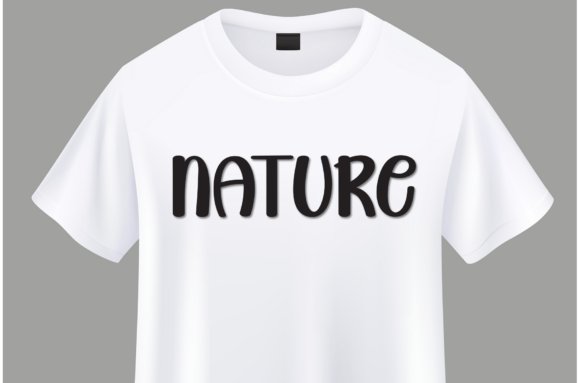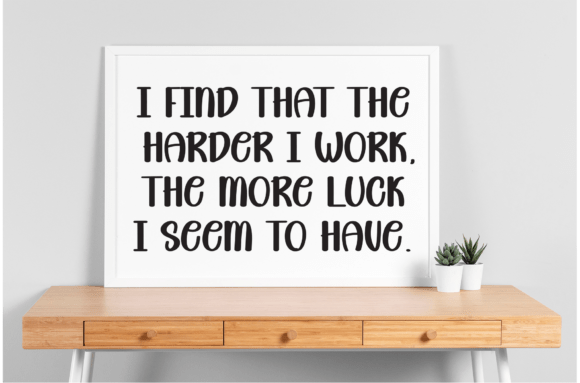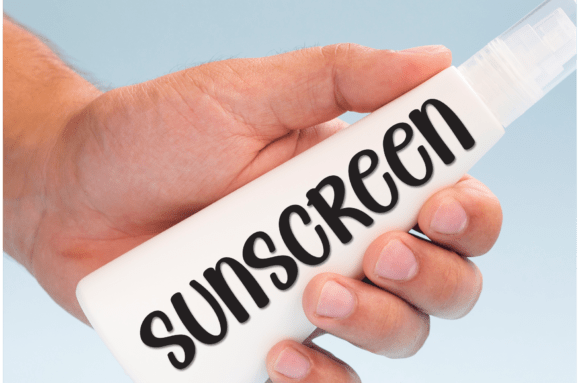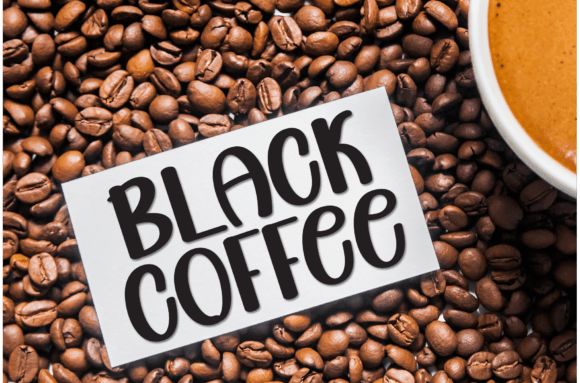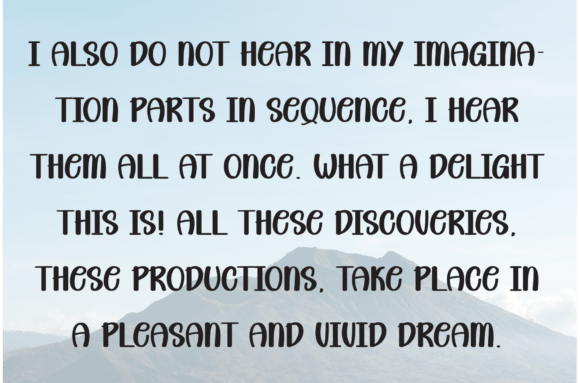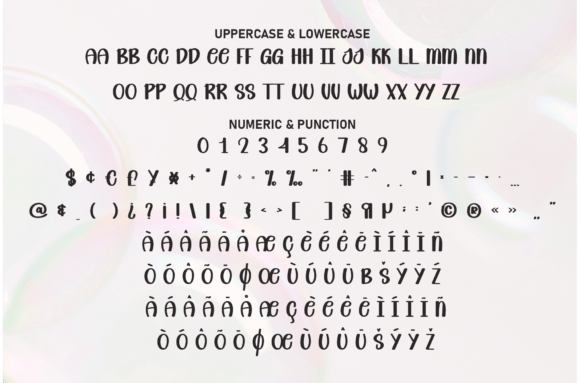
Unleashing the Power of Personality in Typography
As a designer, there’s nothing quite like the thrill of finding the perfect font to elevate a project from good to great. It’s that moment when the words start flowing, and the ideas begin to take shape – and for many of us, it’s a moment that’s all about capturing the right tone and personality. For branding, packaging, and digital content, the right font can be the key to unlocking a warm and inviting connection with your audience.
Enter the Bubble Font, a display font that effortlessly combines simplicity with a friendly, approachable vibe. With its clean lines, balanced letterforms, and subtle rounded edges, this font is the perfect companion for designers looking to add a touch of modern handwritten charm to their work. Whether you’re looking to create a cohesive brand identity or simply add some visual interest to your designs, the Bubble Font is a valuable asset to have in your toolkit.
Bubble Font Key Features
- Font Family: Bubble Font is a unique, hand-drawn sans-serif font family designed for digital use.
- Character Set: Includes a wide range of characters, including Latin, Cyrillic, and Greek alphabets, as well as punctuation and symbols.
- Resolution: Optimized for high-resolution displays (Retina-ready) with a recommended size range of 14-48 points.
- Unique Characteristics: Features a playful, rounded design with subtle bubble-like shapes, perfect for creating a friendly and approachable visual identity.
Bubble Font Review
At first glance, the Bubble Font seems like a playful and whimsical addition to any design project. ✨ The rounded, bubbly shapes of each letter are undeniably eye-catching, making it perfect for creating a lighthearted and approachable atmosphere. I can see this font being used for children’s books, social media campaigns, or even advertising materials.
- Easy to read, even in smaller font sizes ✨
- Variety of weights and styles available, allowing for customization ✨
- Works well for digital and print projects ✨
However, there are some limitations to consider: ⚠️ The font can be overwhelming if used excessively, and its playful nature may not be suitable for all audiences. Additionally, the rounded shapes can make it difficult to read in certain contexts, such as in body text or for long passages of text.
Overall, I would say that the Bubble Font is a fun and versatile option for designers looking to add a touch of whimsy to their projects. While it may not be suitable for all applications, it’s definitely worth considering for the right project. With careful use and balance, this font can add a delightful touch to your design work.
Bubble Font is commonly used for:
- Social media graphics
- Event invitations
- Children’s educational materials
Tips: Use Bubble Font to add a playful and creative touch to your designs. Experiment with different font sizes and colors to create visually appealing effects.